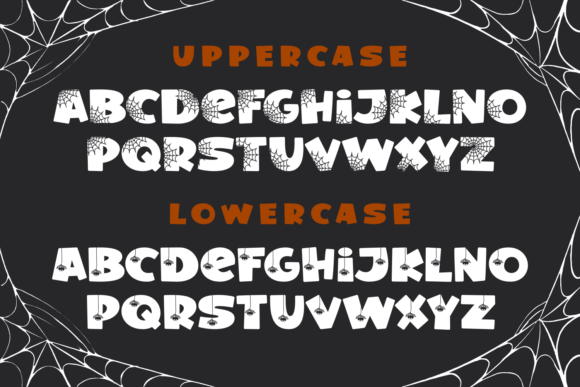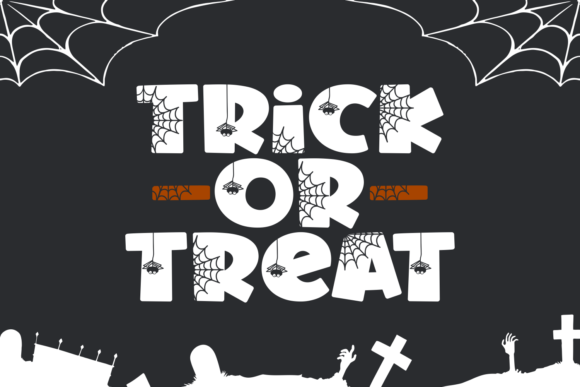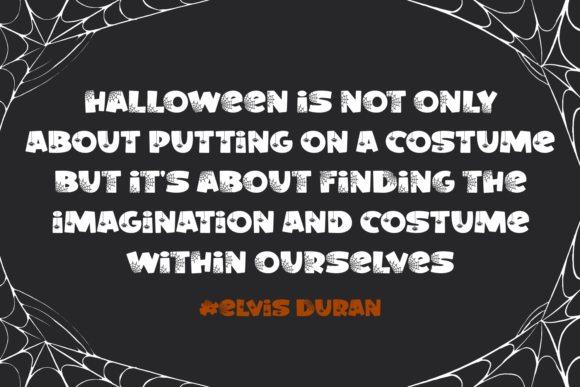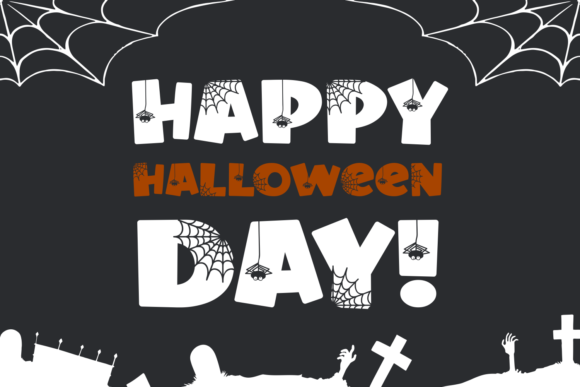
Introduction to Hey Spider Font Font
Fonts play a crucial role in design, and the Hey Spider Font font is a typeface that brings both character and versatility to any project. Whether you’re working on a branding project, a website, or a print design, the Hey Spider Font font offers a unique style that can elevate your work.
Hey Spider is a cool, fun and quirky decorative font.
It embodies playfulness and authenticity and is the perfect choice for any children activity or school project .
Key Features of Hey Spider Font Font
Why Choose Hey Spider Font Font?
The Hey Spider Font font is more than just a typeface – it’s a design tool that helps you communicate your message with style and clarity. Its unique character set and versatile design make it suitable for a wide range of applications, from elegant invitations to bold headlines.
With its carefully crafted letterforms and balanced proportions, the Hey Spider Font font ensures readability and visual appeal across all mediums.
What makes Hey Spider Font font special?
The Hey Spider Font font stands out with its unique design, exceptional readability, and versatility across various design applications.